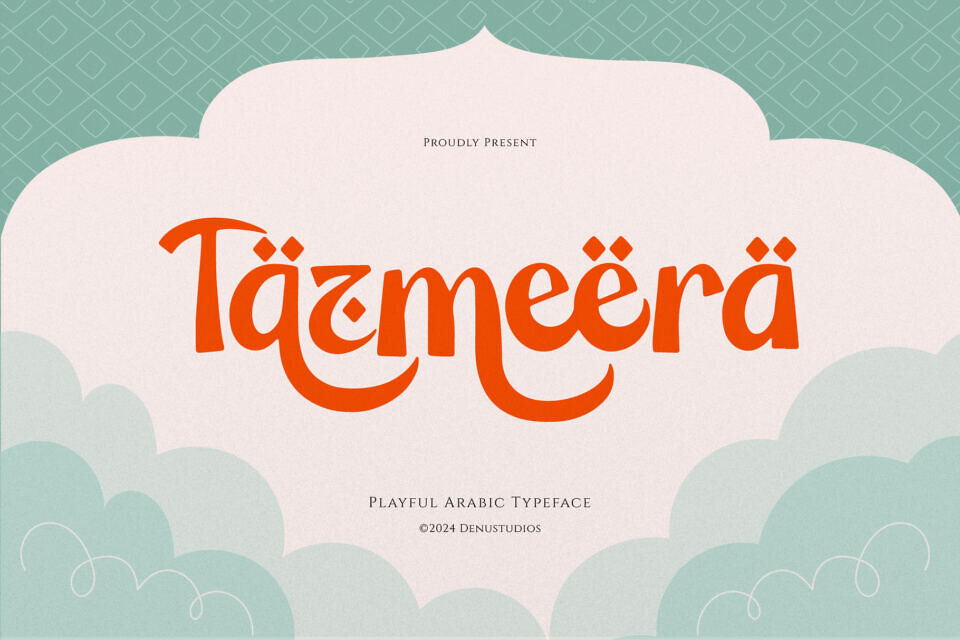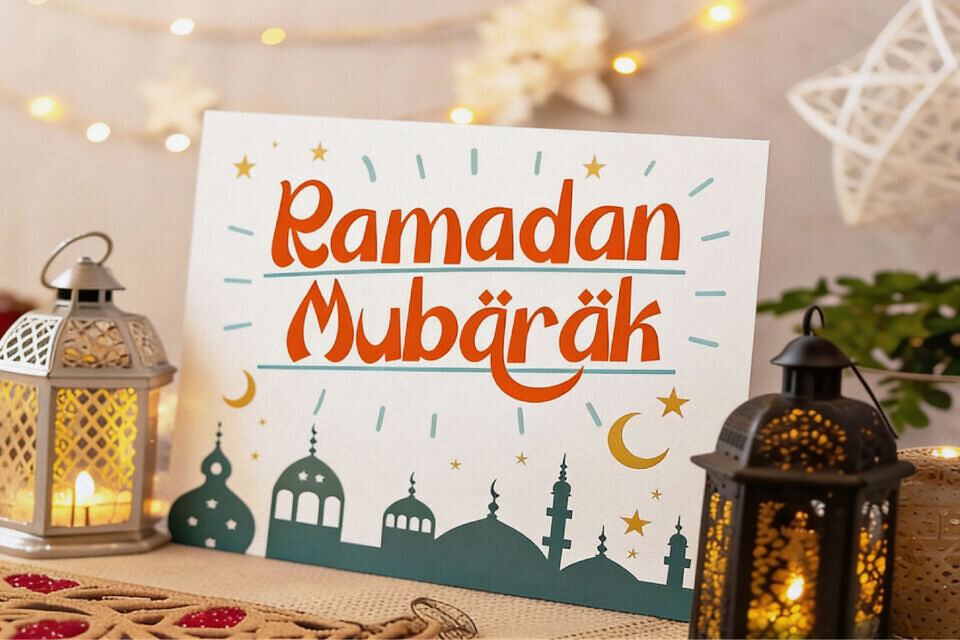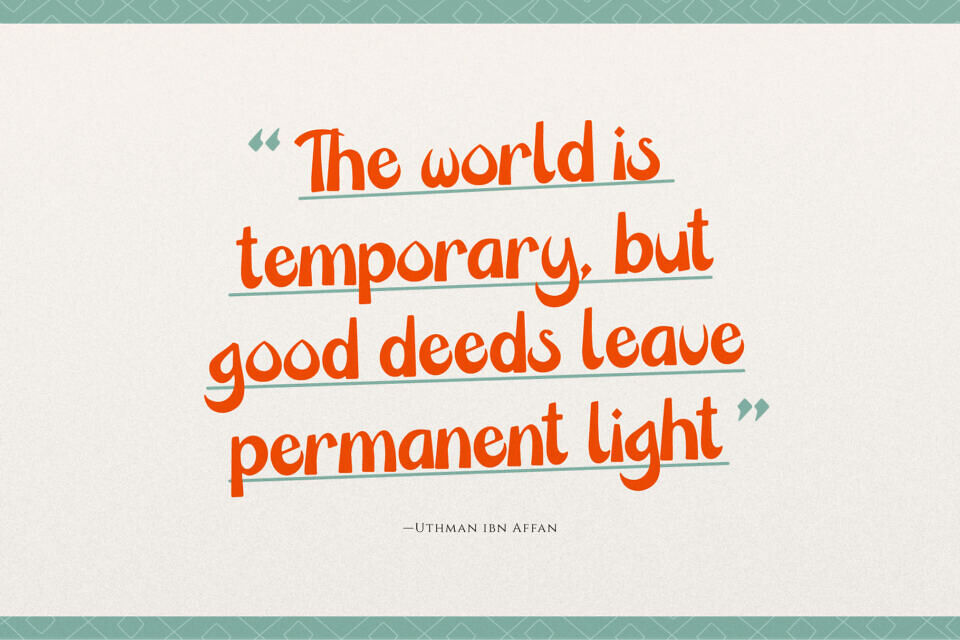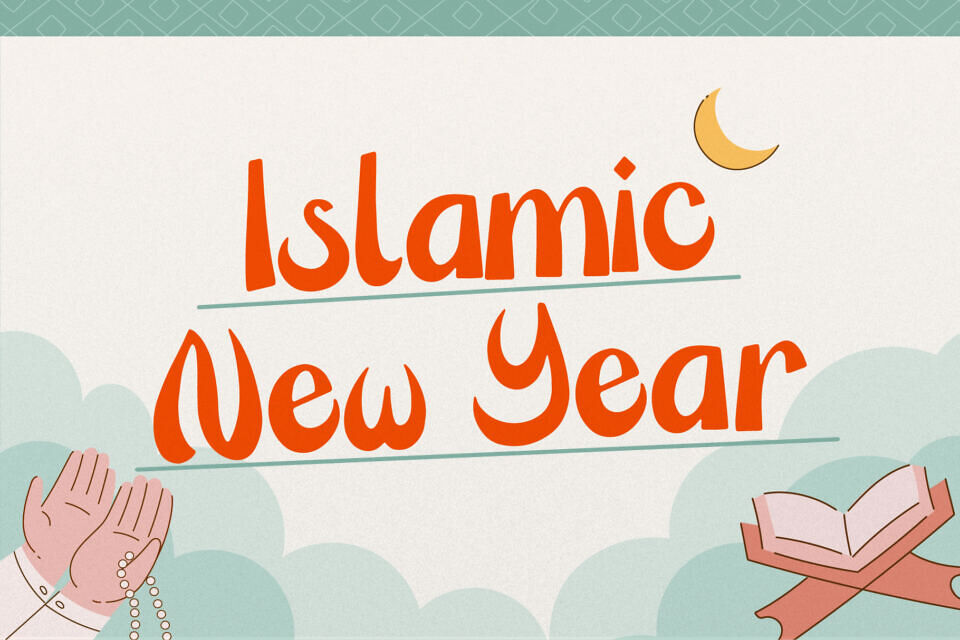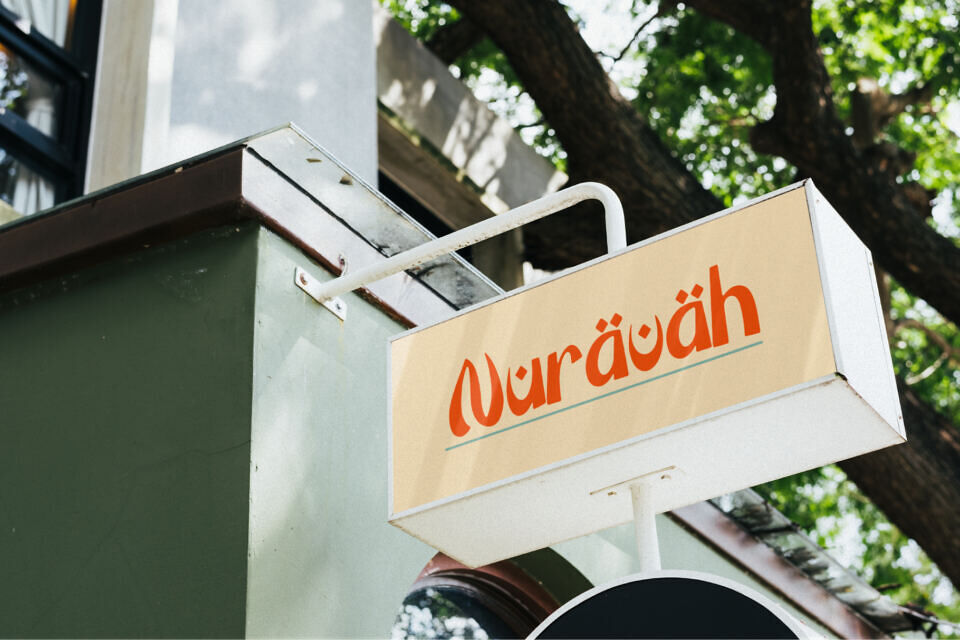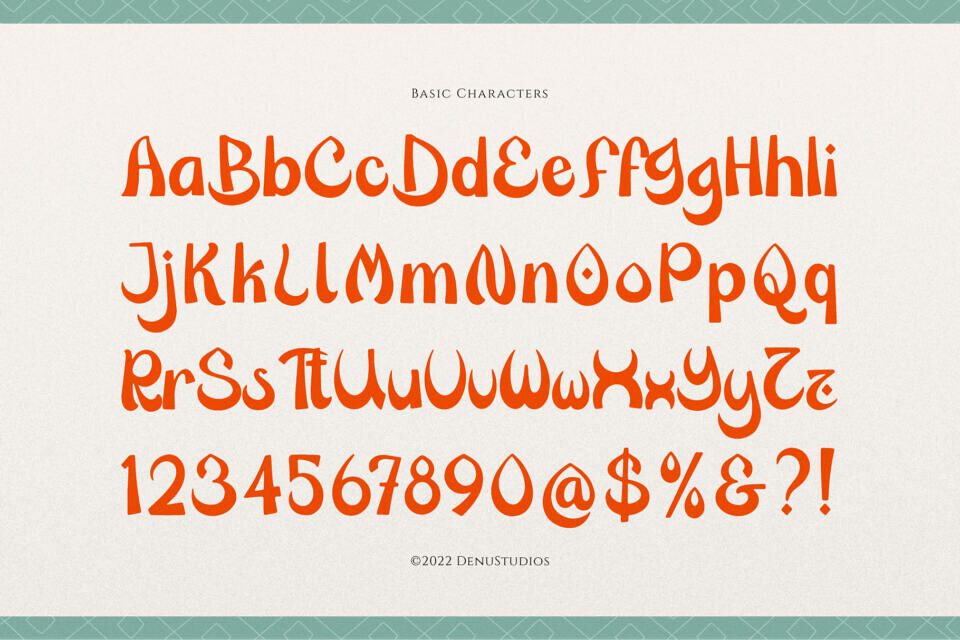
Tazmeera Font
Infuse your designs with a vibrant cultural rhythm using Tazmeera, a playful Arabic-style display typeface. This font masterfully blends Latin letterforms with the elegant fluid dynamics of traditional Arabic calligraphy, featuring dramatic sweeping swoops, elongated descenders, and stylized diamond-shaped diacritic dots.
Rendered in a bold, eye-catching orange hue, its rhythmic baseline and smooth fluid connectivity capture an inviting, festive energy. Tazmeera is an extraordinary choice for Middle Eastern culinary branding, festive holiday event posters, creative children’s book covers, and global travel branding.